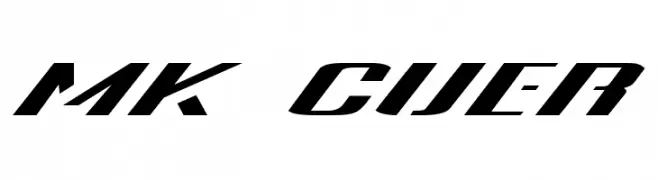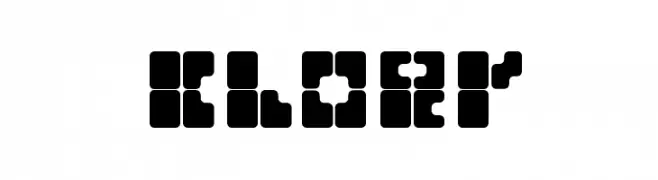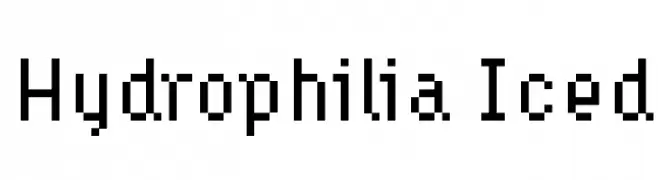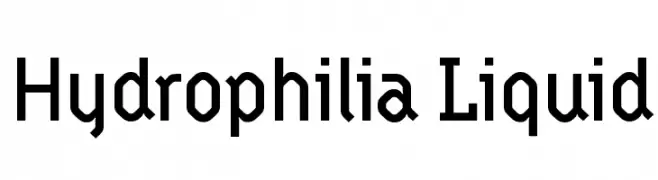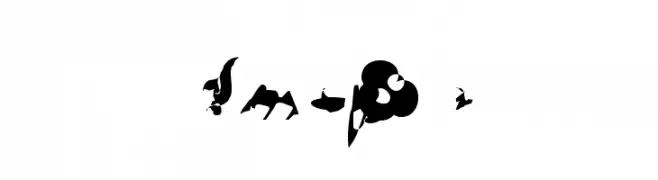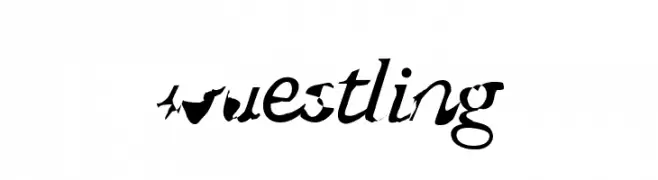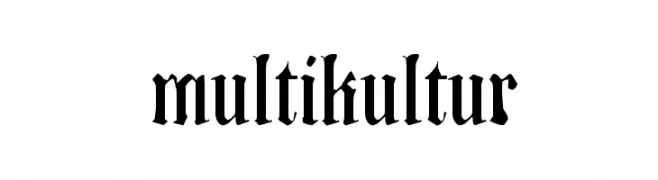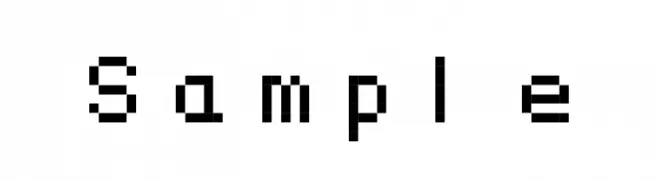
A bold, italicized font with a dynamic and futuristic style.
A bold, geometric font with a blocky, pixelated design.
A pixelated, retro font inspired by early digital displays.
A geometric, modern font with angular, consistent strokes.
A bold, abstract font with fragmented characters and graphic elements.
A dynamic, cursive font with high contrast and expressive strokes.
A bold, gothic-style font with sharp angles and thick strokes, ideal for dramatic headlines.
A classic blackletter font with ornate, angular designs and a medieval aesthetic.
A pixelated, monospaced font with a retro digital aesthetic.
An ornate Blackletter font with intricate, angular letterforms and historical elegance.